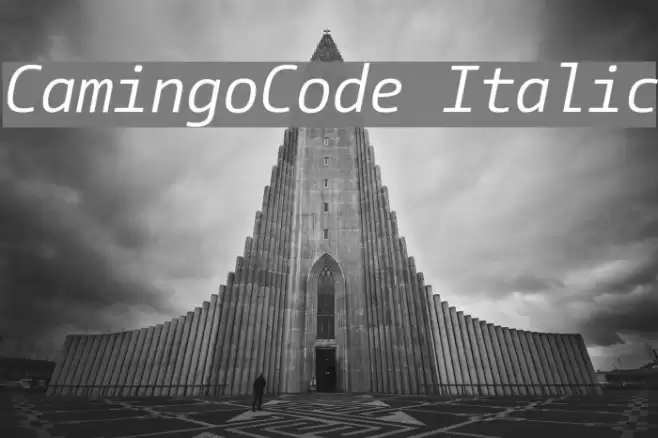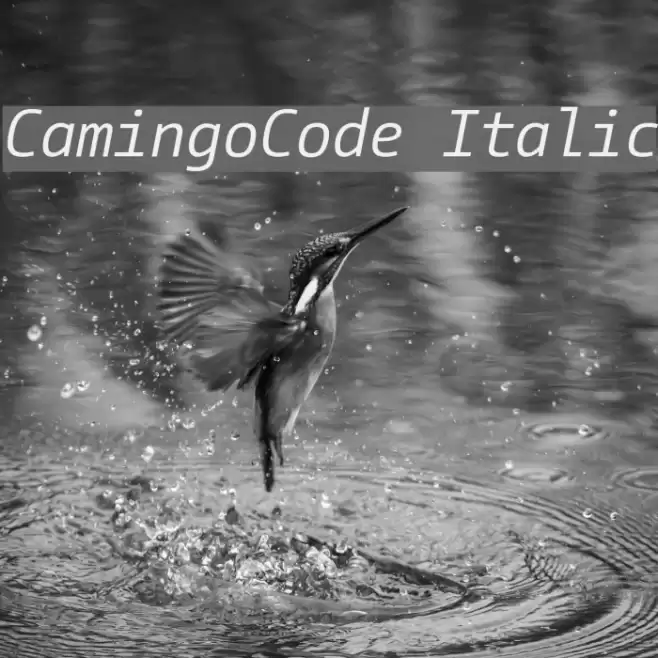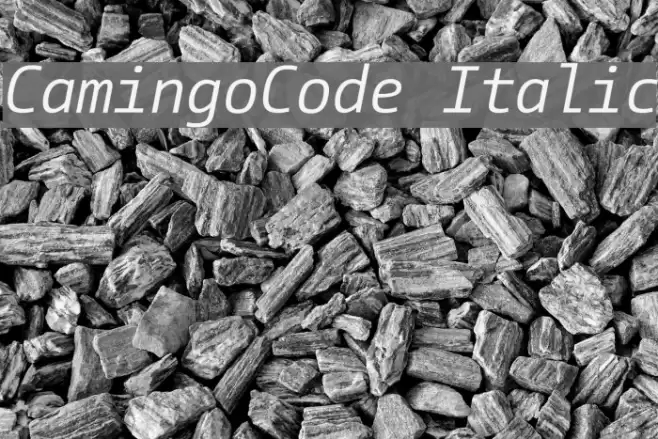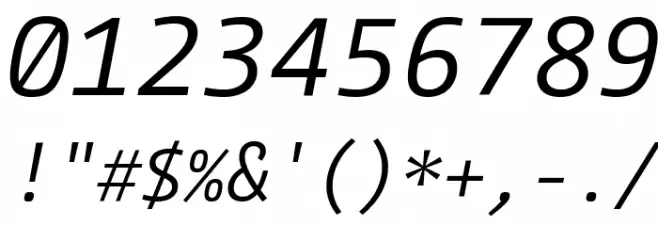
CamingoCode Italic Font
CamingoCode Italic Description
This font features a clean and modern design with a slight italic slant, giving it a dynamic and forward-moving appearance. The characters are monospaced, ensuring equal width for each letter and number, which is ideal for coding and technical documents. The strokes are consistent with medium contrast, providing clarity and readability. The overall style is minimalistic, with smooth curves and straight lines that create a professional and sleek look. The font includes a full set of uppercase and lowercase letters, numerals, and a variety of punctuation marks and special characters, making it versatile for various applications.
A modern, monospaced italic font with medium contrast, ideal for coding from Uncategorized fonts.
- Proposed Projects: Suitable for coding environments, technical documentation, and digital interfaces where clarity and uniformity are essential.
- Use Case: Coding, Technical documentation, Digital interfaces